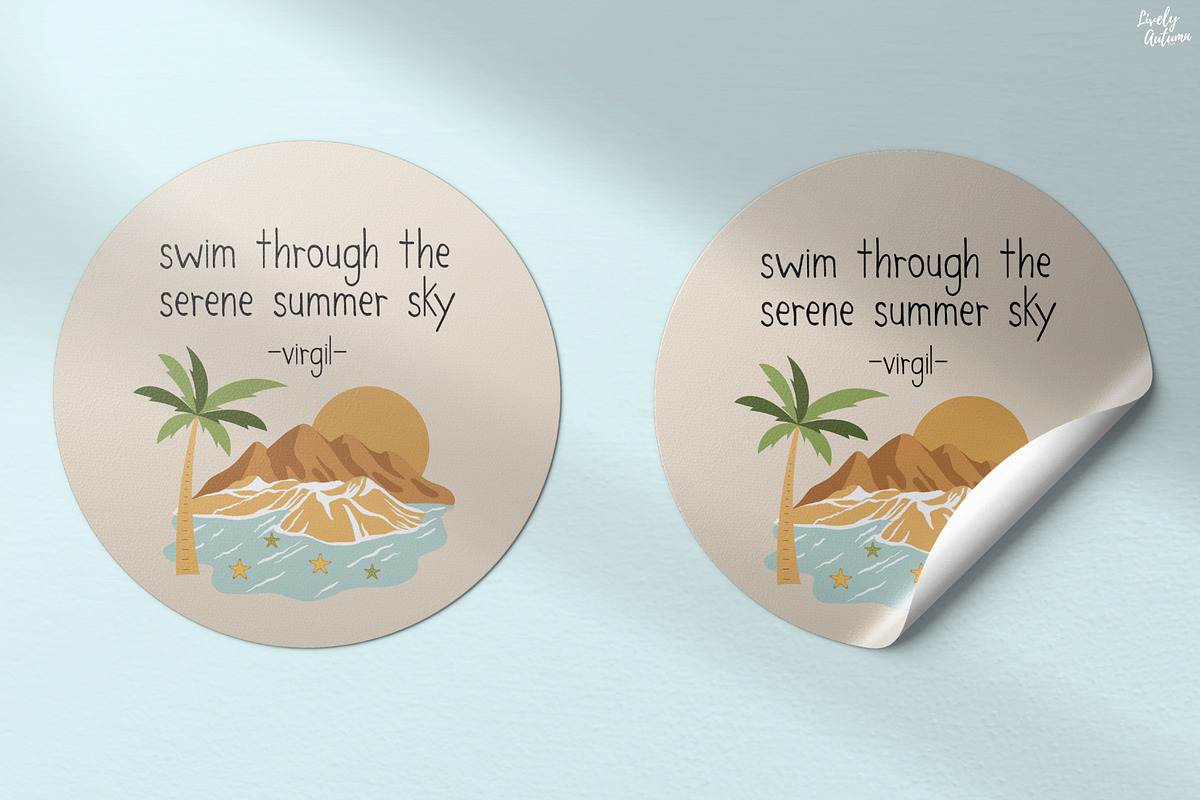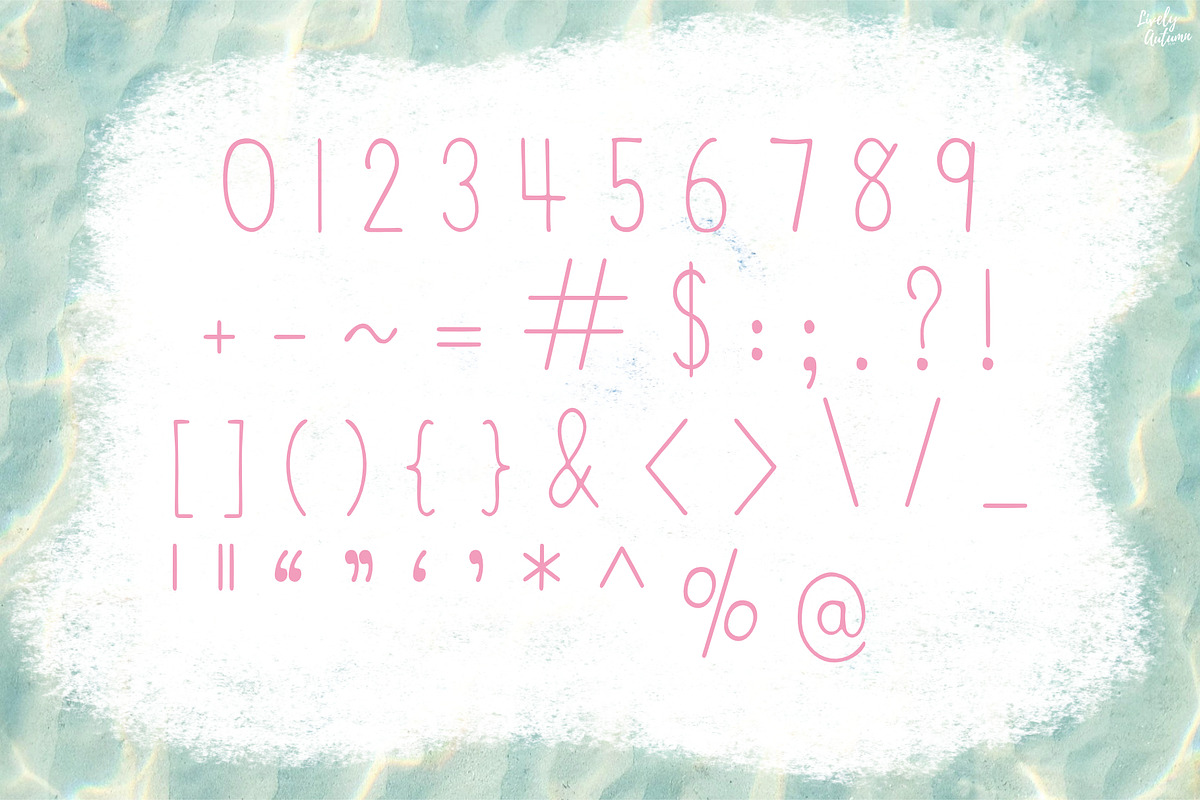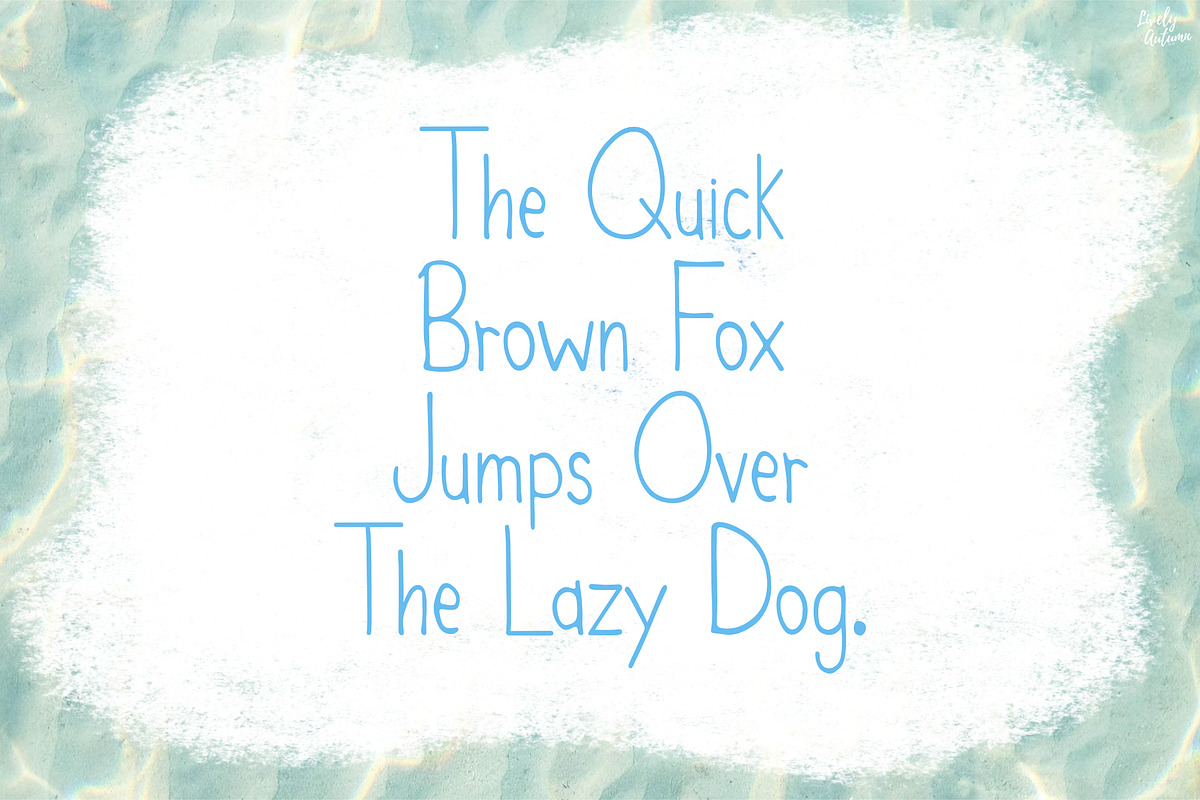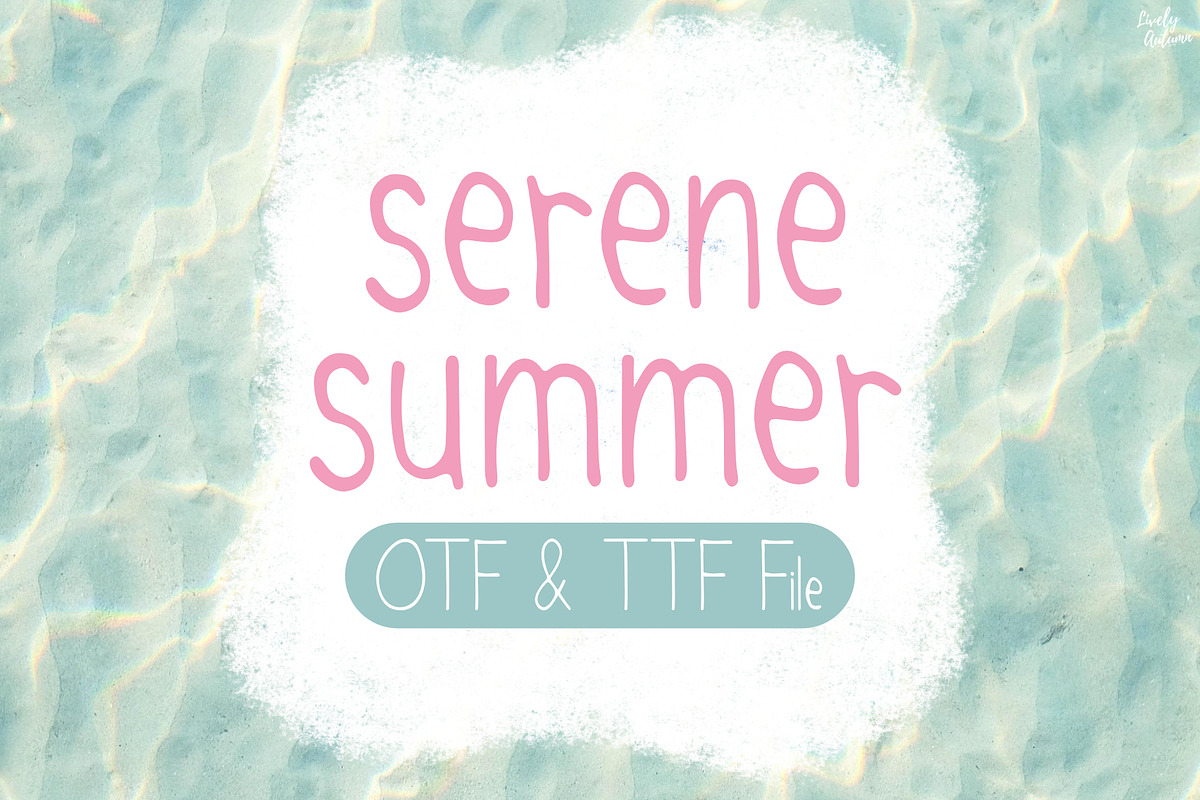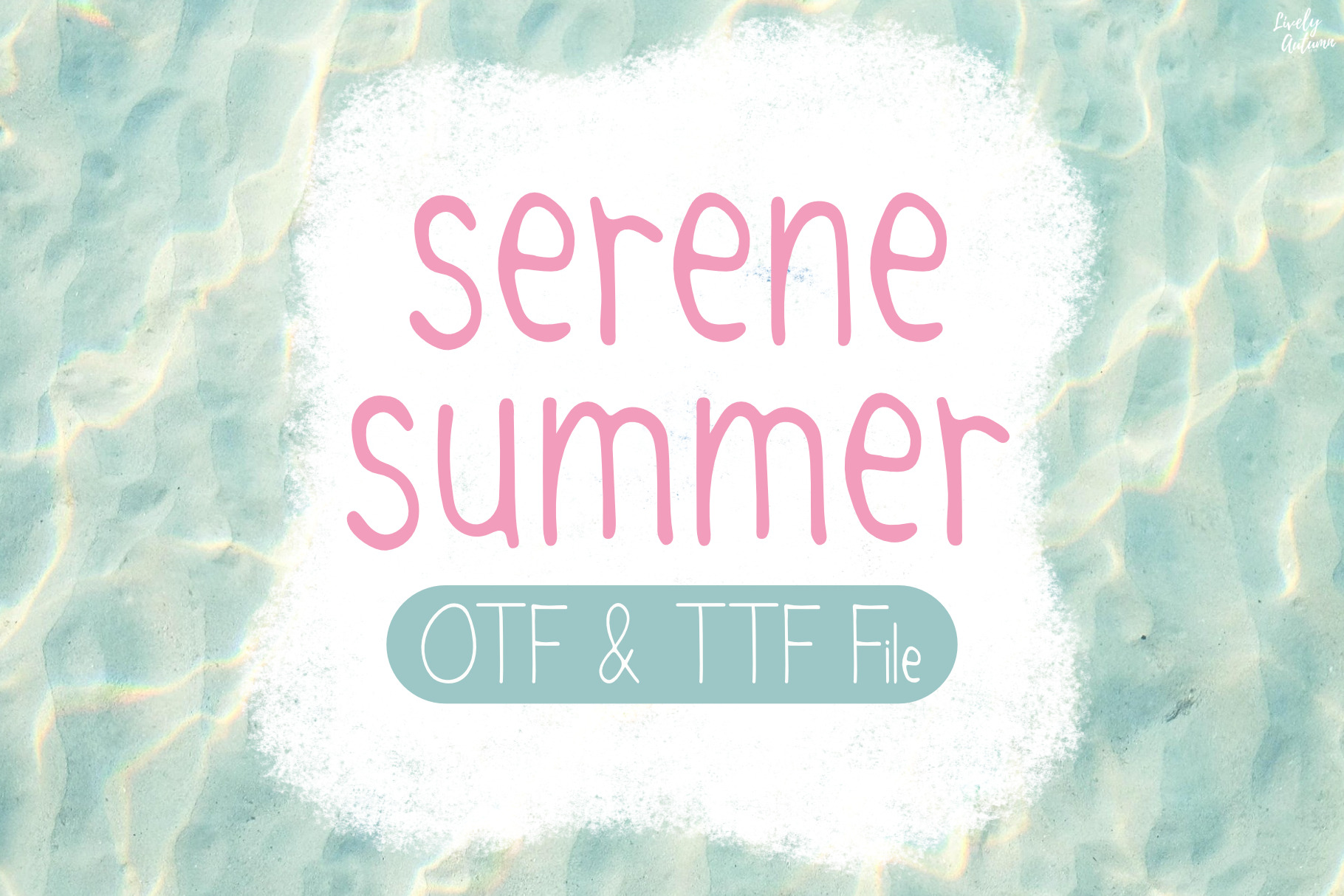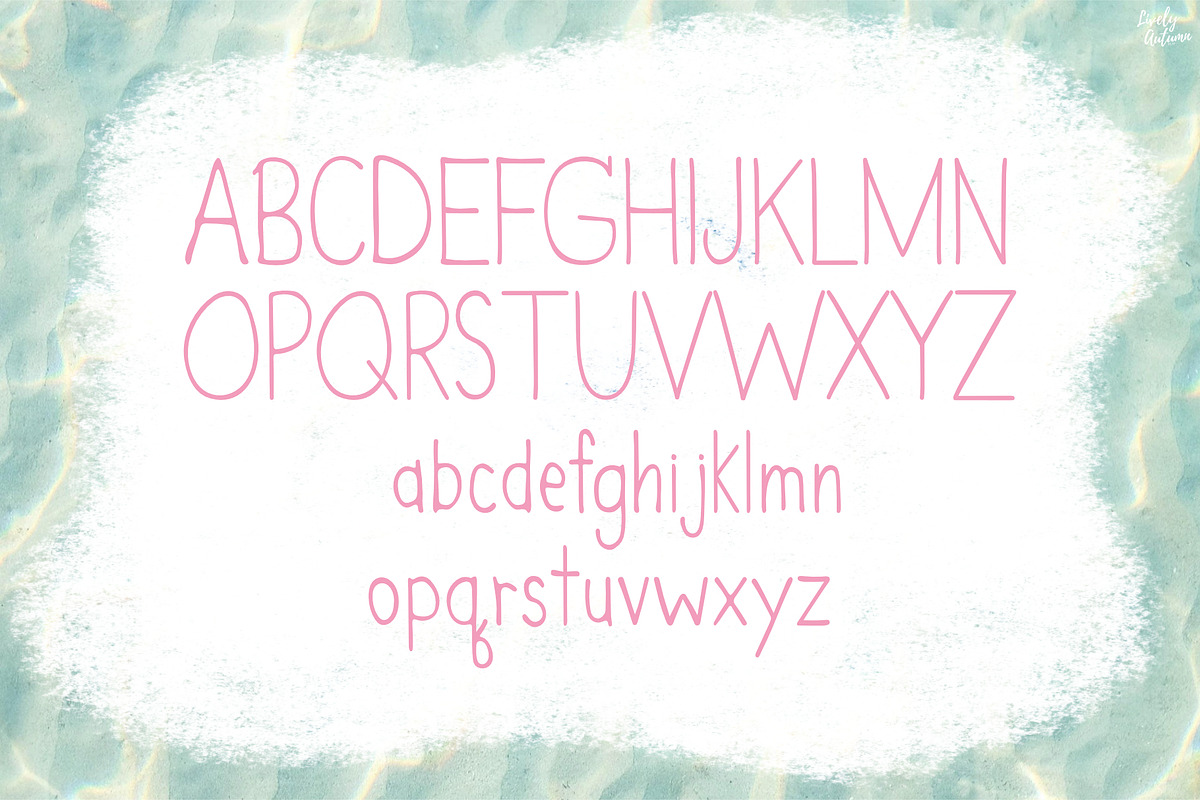
Serene Summer | Handwriting font
Serene Summer Font is a cute handwritten font. Perfect for your personal projects and various projects. From invitations to posters, social media graphics, journals, and much more.
- Font includes: uppercase, lowercase, numbers, and punctuation